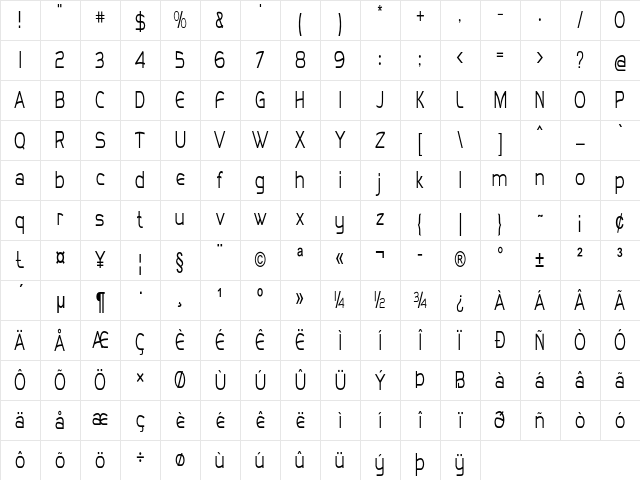
Castoo Condensed Regular
Style: Condensed Regular
Castoo Family
Castoo Condensed Regular
Design Context for Castoo
Castoo is a composed and adaptable typeface that performs quietly and consistently across a wide range of design contexts. Its narrow stance lets it pack a punch even in space-constrained designs.